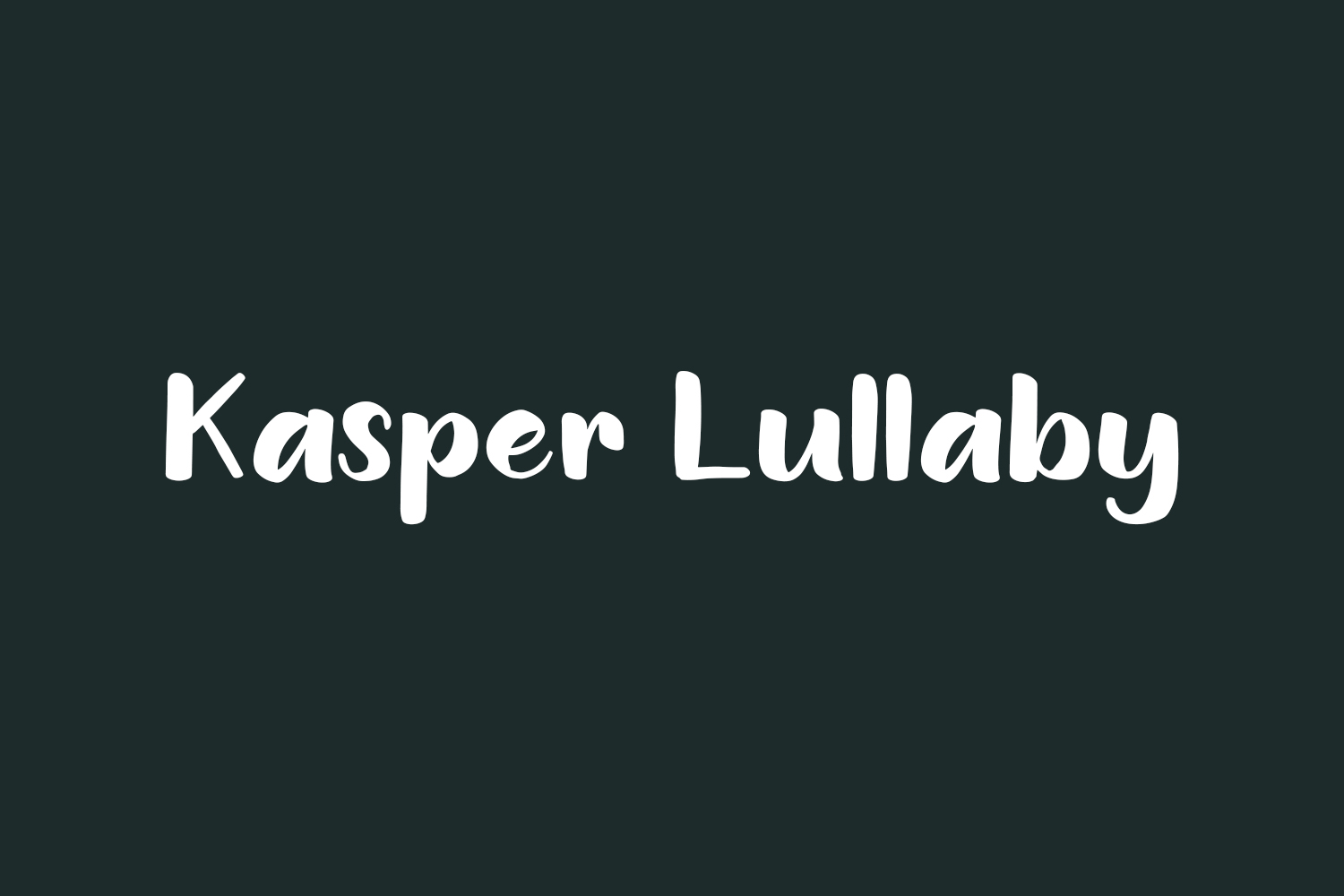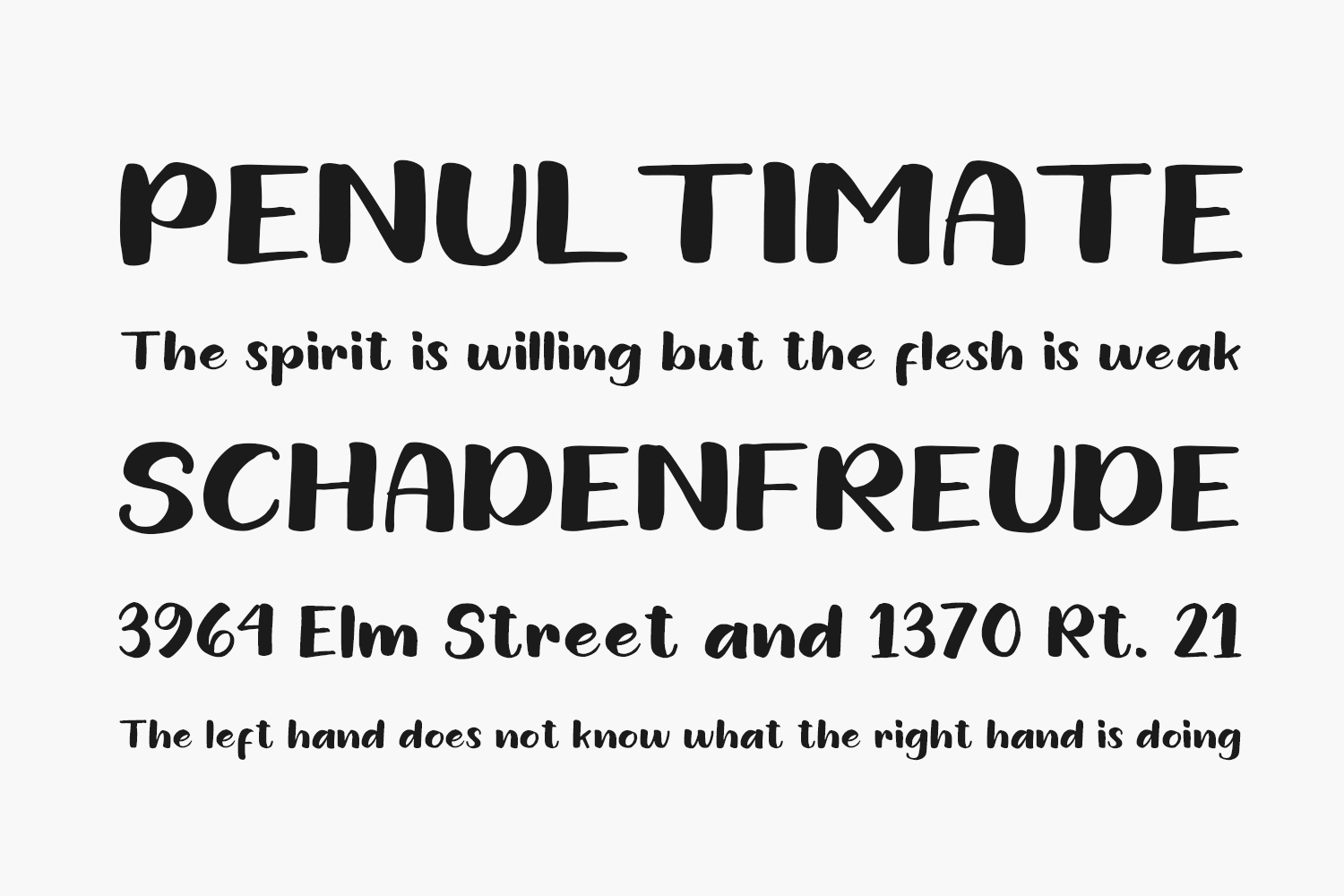
Kasper Lullaby Free Font is a unique handwritten font crafted with care. Get inspired by its cute appearance. Download the font for free if you need it for personal use or purchase the full version for commercial use.
Designed by Akhmad Reza Fauzi